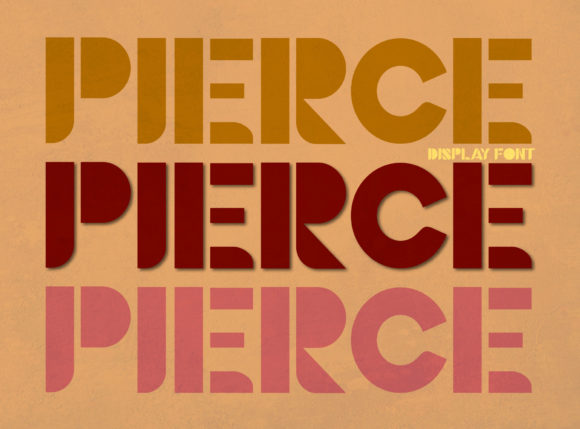
Behold Pierce Font: A Typographic Masterpiece for Designers and Creatives
Embark on a visual odyssey with Pierce Font, a captivating display font that exudes casual boldness and timeless charm. This typographic gem is meticulously crafted by BB Type Studios, renowned for their artistry in shaping letters into captivating forms. As a display font, Pierce shines brightest when it takes center stage, transforming your designs into visually striking masterpieces.
Pierce is not just another font; it's an artistic expression that breathes life into your creative endeavors. Its audacious strokes command attention, inviting viewers to immerse themselves in the depths of your message. Whether you're a seasoned designer or just starting to explore the world of typography, Pierce is your trusted companion, ready to bring your visions to life.
With its innate ability to dance across various mediums, Pierce effortlessly elevates branding, product packaging, invitations, and quotes. Imagine your brand name emblazoned in Pierce's bold characters, leaving an indelible mark on the minds of your audience. Product packaging adorned with Pierce's playful spirit adds an irresistible touch of intrigue, inviting customers to discover the treasures within.
Pierce's versatility extends to the realm of personal expression. Design heartfelt invitations that capture the essence of your special moments, adorned with Pierce's charming strokes. Inspirational quotes take on a new life when rendered in Pierce, resonating with newfound power and eloquence. Unleash your creativity and let Pierce transform ordinary words into extraordinary statements.
T-shirts, labels, posters, and logos find their perfect match in Pierce's bold embrace. It's a font that refuses to blend into the background, demanding attention with its confident presence. Create t-shirts that speak volumes, labels that exude sophistication, posters that command a room, and logos that embody the essence of your brand.
Pierce Font is more than just a collection of letters; it's an open invitation to explore the boundless realms of creativity. Its versatility and captivating nature make it an indispensable tool for designers and creatives alike. Embrace the power of Pierce and witness your designs metamorphose into captivating expressions of your imagination.